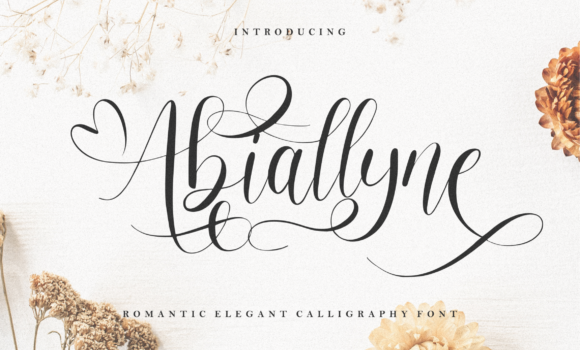
Abiallyne Font – Free Download Introduction to Abiallyne Font Abiallyne is a magical script font carefully created with a touch of elegance. 📸 Preview Gallery 6 images 📌 Product Name Abiallyne Font 👤 Author qwrtypefoundry 📂 Category Explore ⬇️ Download